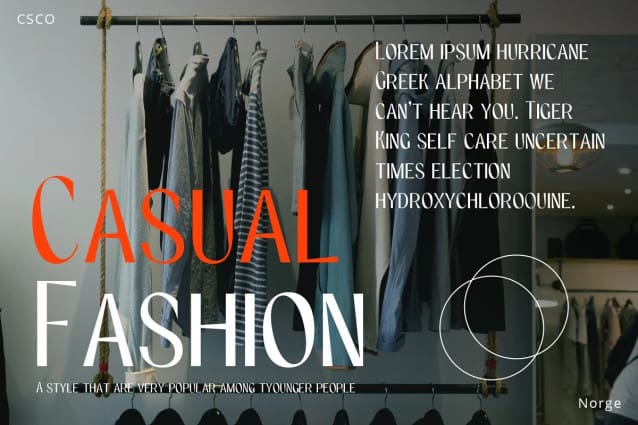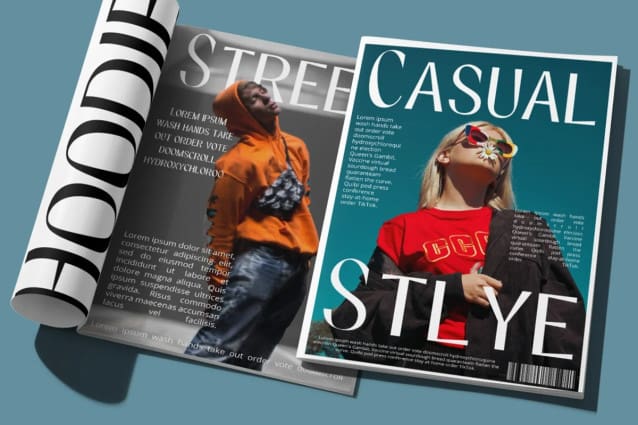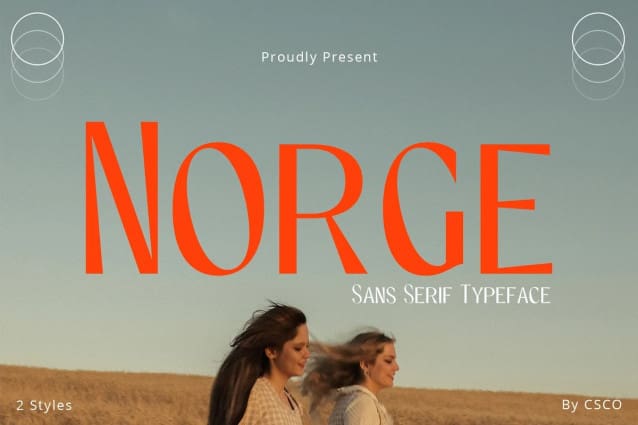
Norge Font
Norge Font – Contemporary Sans Serif, where elegance meets functionality. At first glance, its sleek design captivates. Each stem bends slightly, injecting playfulness. Additionally, the mitered finishes offer a crisp look. This subtle tilt in structure catches the eye, thus ensuring standout text.
Bold and commanding, Norge excels in headlines. It’s crafted to make your words pop. Moreover, large or small, Norge remains clear and readable.
From posters to web graphics, Norge adapts seamlessly. Its characters shine across various applications. Furthermore, it harmonizes with numerous design styles with ease.
Norge Font is designed for clarity. With no complex curves or confusing figures, it’s straightforward. It also supports a broad range of characters, so everyone can use Norge effortlessly.
In conclusion, Norge transcends the typical sans serif. Its slanted stems bring innovation to displays. Therefore, for your next project, let Norge be the choice that sets it apart.